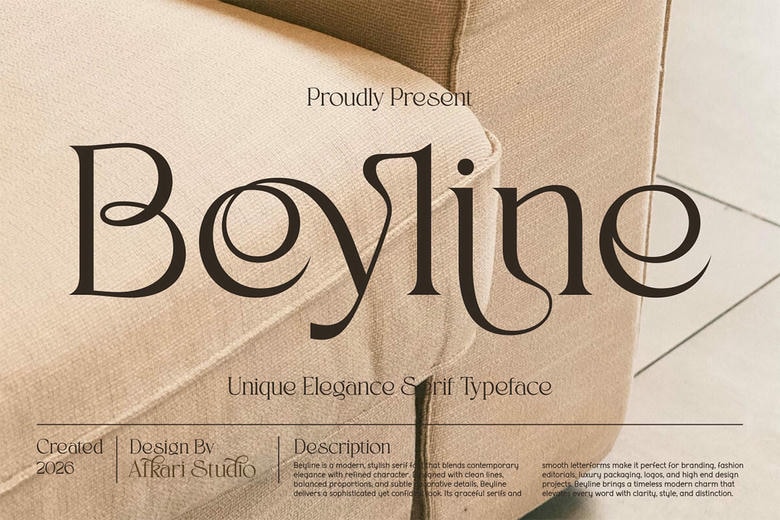
Beyline Font
Beyline is an exclusive, fashionable serif font that has been designed to provide classy beauty, artsy nature and eternal class. Majestically curved, sculpted in sleek serif lines and harmonized proportion, Beyline has acquired the traditional serif construction with a present-day posh look. The outcome is a unique type of display that is high-end, assertive, and image-grabbing.
High end logos, fashion editorials, wedding invitations, boutique packaging, beauty products and social media design, Beyline brings a touch of high end and exclusivity to any project. Its refined contrast and well-defined letterforms provide a good visual impression and a high level of readability of the headlines and short text compositions.
Beyline Serif Font